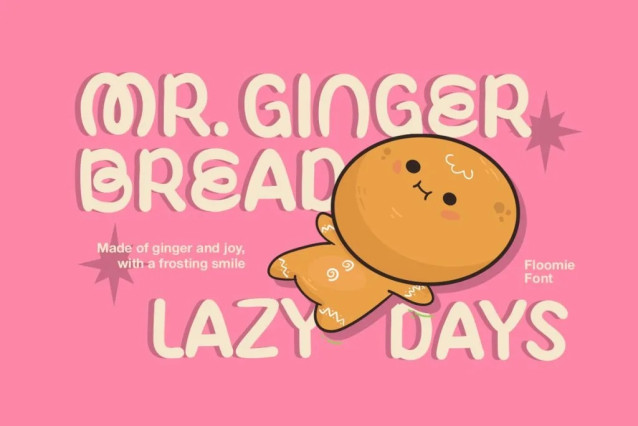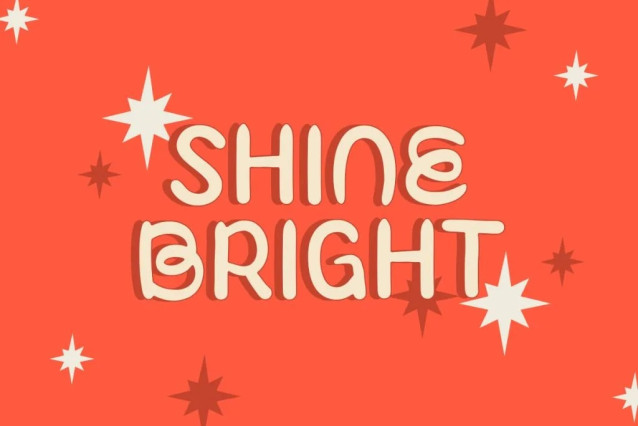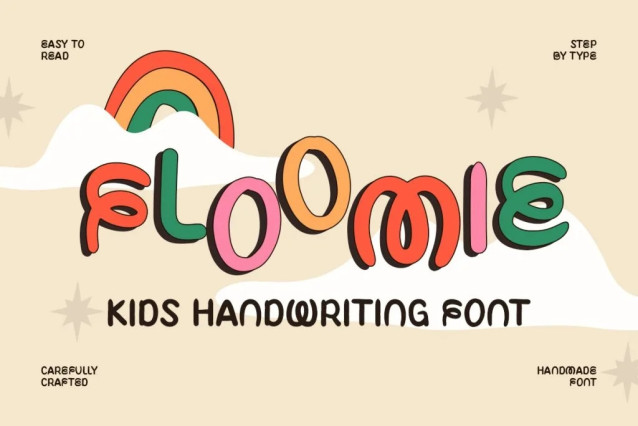
Floomie Font
Floomie Font a joyful kids handwriting font that captures the warmth and wonder of childhood. With its playful, hand-drawn letterforms, Floomie adds an authentic, joyful touch to any project, perfect for designs that need heart, creativity, and a personal, handcrafted feel. Whether you’re designing for children’s books, birthday invitations, or educational materials, Floomie brings a playful energy and a unique, youthful spirit to your work.